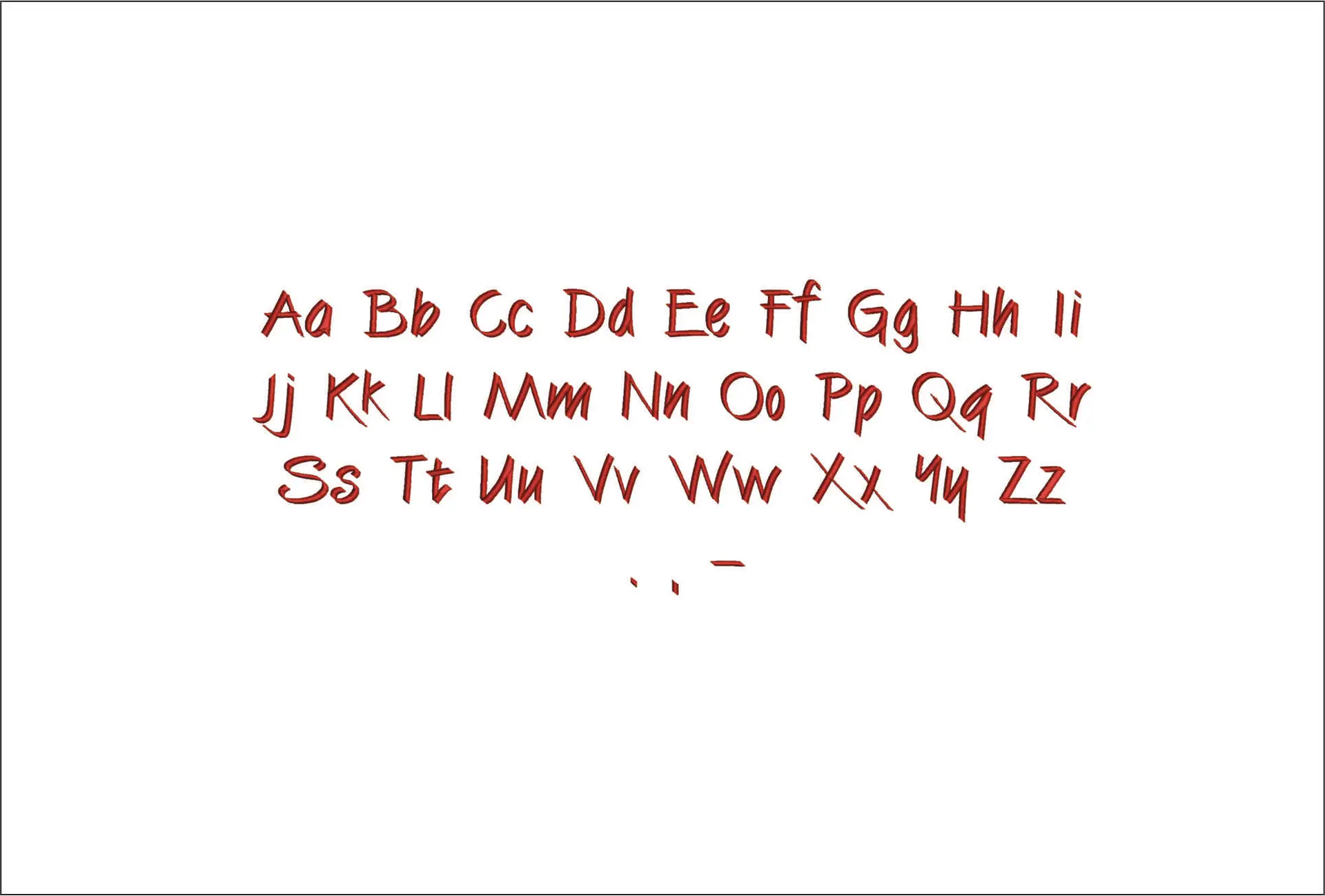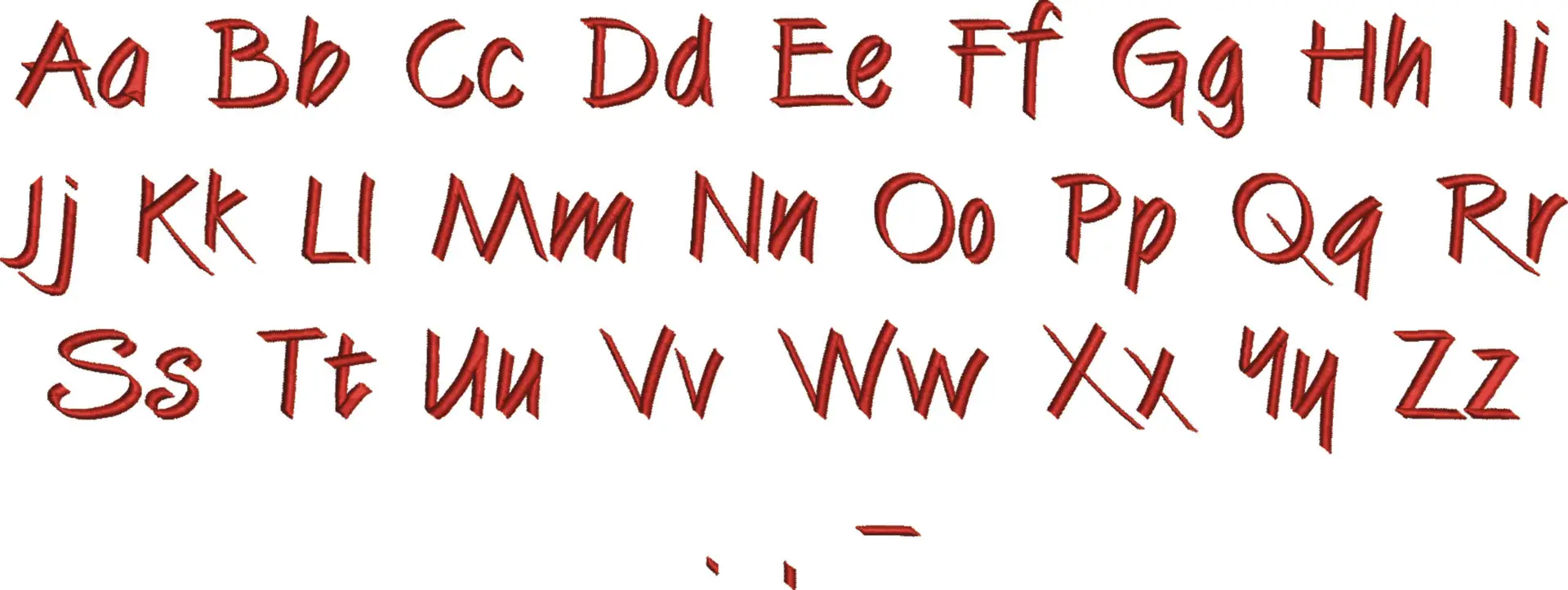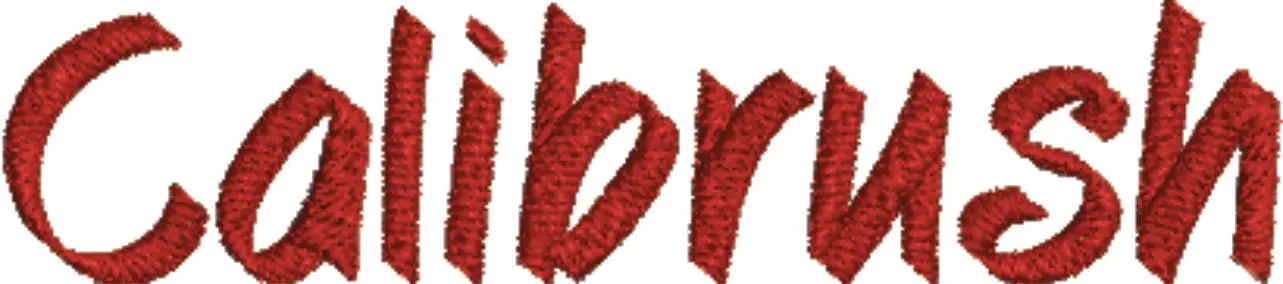
A brush-lettered embroidery alphabet with a smooth handwritten feel for names, slogans and personal touches that need softness, not stiffness.
Add brush-lettered charm to your stitching with Calibrush, a machine embroidery alphabet that reads like real handwriting rather than a rigid typeface. The sample shows a flowing red script with clear uppercase and lowercase letters, giving you the kind of casual, painterly line that suits modern monograms, first names and short phrases. It is a strong choice for makers who want text to feel personal on gifts, boutique childrenswear, accessories or small business branding.
This style works especially well on sweatshirt fronts, tote bags, quilt labels, nursery cushions and the back yoke of a denim shirt, where that slightly brushed stroke can soften a plain surface. The letters have enough presence to stand on their own as a name or initial set, but they also pair neatly with florals, frames and simple motif designs without fighting for attention. Because the look is handwritten and relaxed, it gives finished pieces a custom, made-for-one-person feel.